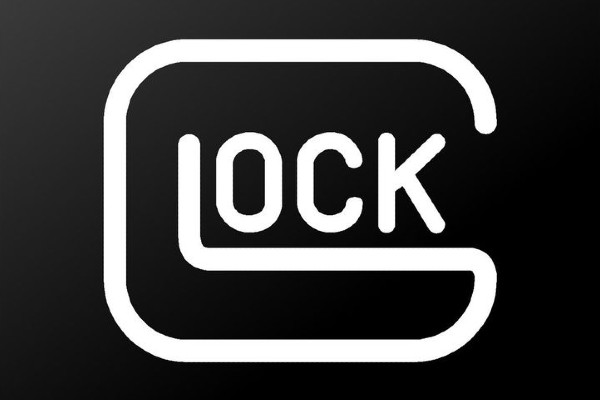
The name of the Glock font that is used in the logo lettering for their logo is a typeface by the name of FF Din Round. This font was designed and created by a Dutch font author who goes by the name of Albert-Jan Pool. It was first released as a commercial font in April of 2010. There are x5 font variants included in this Glock font, they include: Light, Regular, Medium, Bold, and Black.
An interesting side-note is that the FF Din Round font is actually part of a larger FF Din Super Family. There are currently a total of x13 individual fonts in this font family, and all are loosely related in regards to styling and appearance. Some of the typefaces included in the FF Din font family include: Regular, Round, Slab, Stencil, Arabic, and Paneuropean.
Glock is a well-known Austrian manufacturer founded in 1963. The company is best known for its line of polymer-framed semi-automatic products, which are widely used by law enforcement agencies and military organizations around the world. The Glock brand is also popular among civilians for its reliability, durability, and ease of use. The company has released numerous models over the years, including the Glock 17, Glock 19, and Glock 21, and is known for its commitment to innovation. Glock is a respected and trusted brand in the manufacturing industry, with a reputation for producing reliable, high-quality products.
The Glock logo consists of a stylized letter "G" surrounded by a circle. The "G" is white and appears to be slightly three-dimensional, with a slight shadow effect. The circle around the "G" is black. The logo is usually depicted in a metallic silver color, which gives it a sleek, modern appearance. The overall design of the logo is simple and streamlined, reflecting the company's focus on practicality and functionality. The logo is often used on Glock products, such as their manufactured military items and accessories, as well as on promotional materials such as advertisements and website graphics.